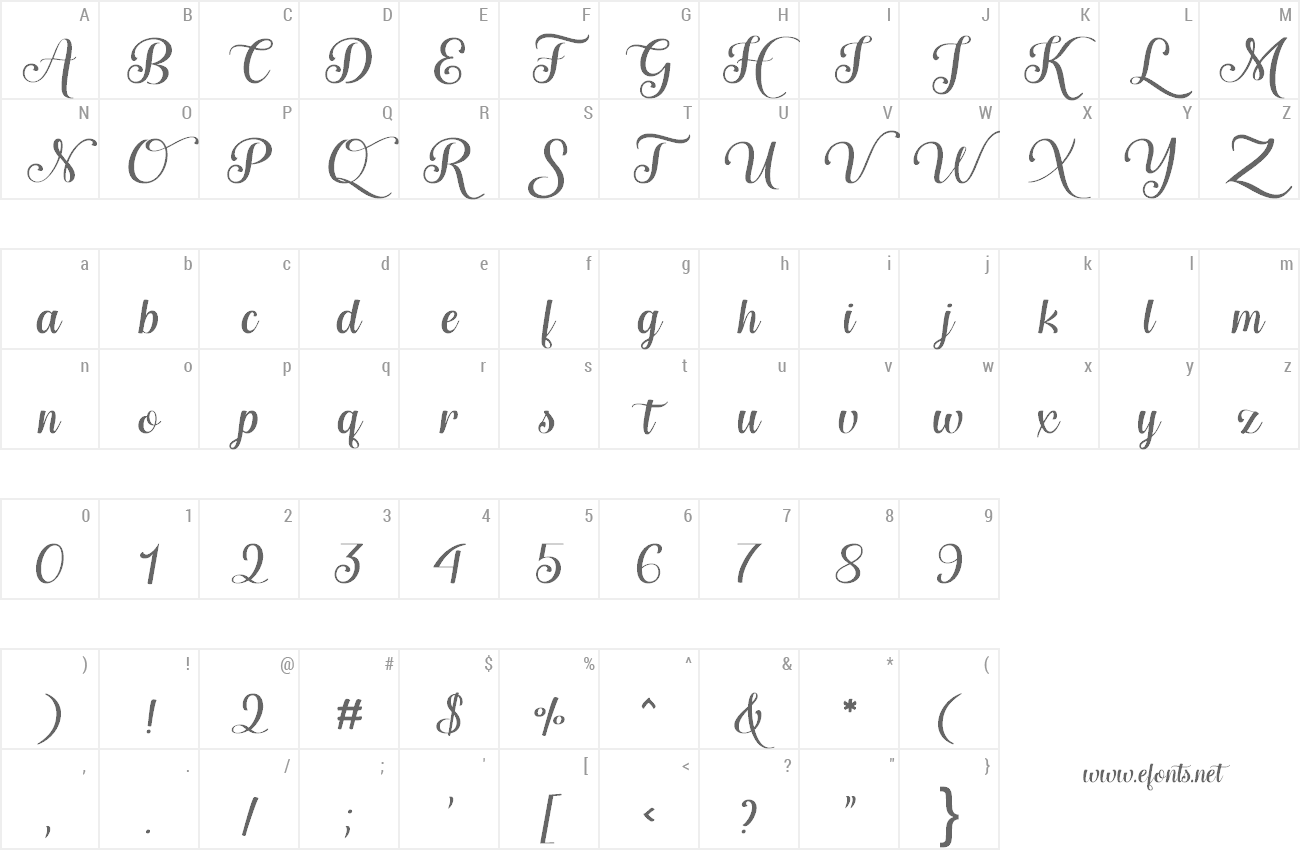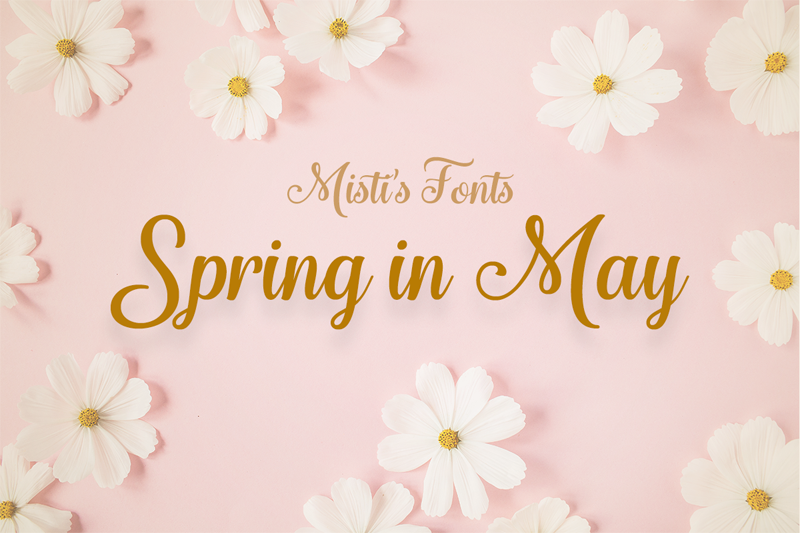
Preview and download Spring in May Font. Created by Misti's Fonts in Script Calligraphy styles with Free for personal use license.
Spring in May is a stunning calligraphy typeface. Its elegant design makes a perfect choice for wedding invitations, lovely greeting cards and any project that requires a fancy touch. Terms Of Use and Commercial Licensing: https://mistifonts.com/spring-in-may/ |